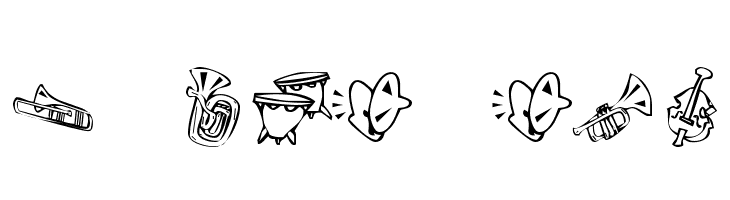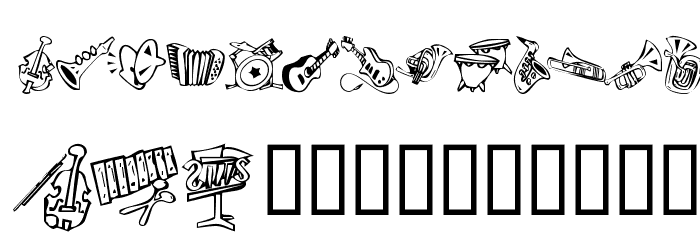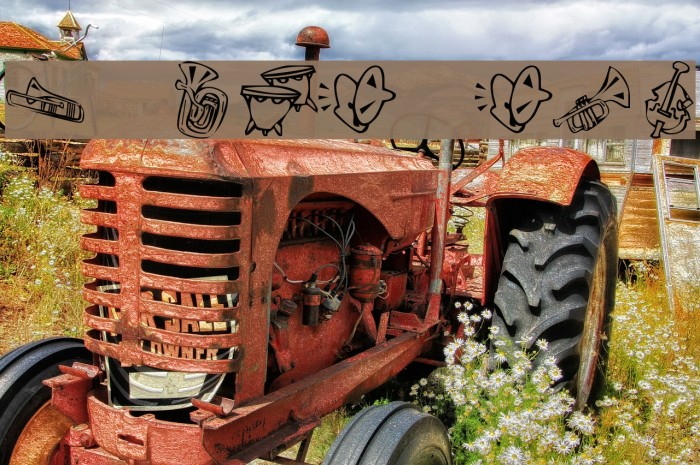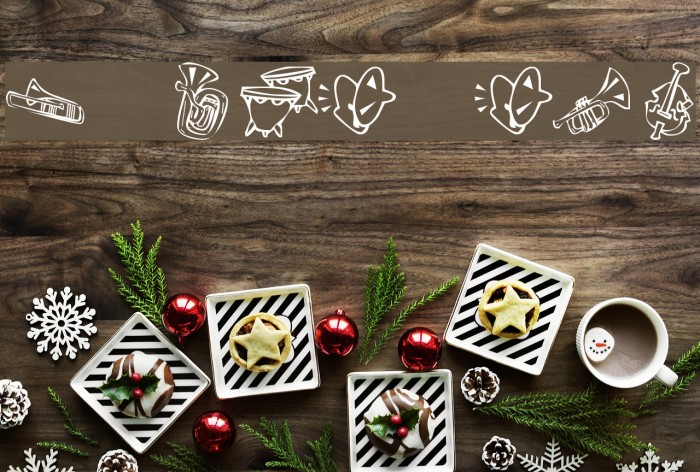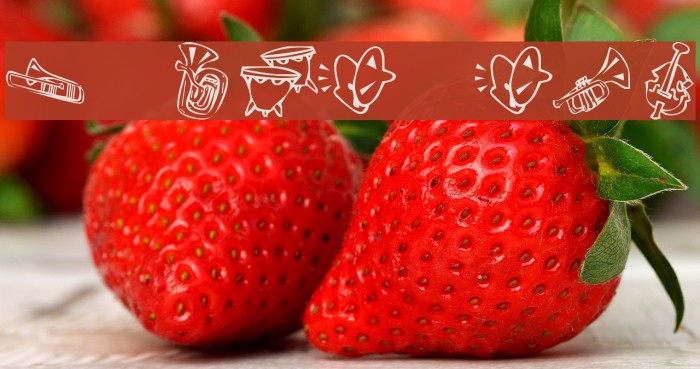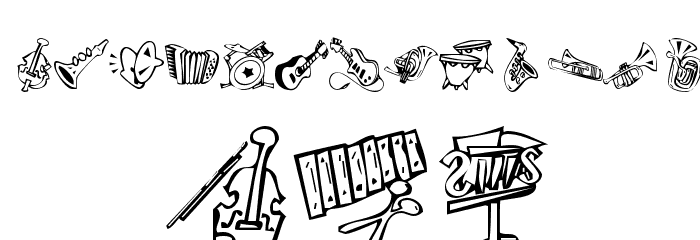
KR Music Class Font
This is a decorative font that features a playful and artistic representation of various musical instruments. Each character is uniquely designed to resemble a different instrument, such as guitars, drums, and trumpets, creating a whimsical and engaging visual theme. The font is highly stylized, with bold outlines and intricate details that capture the essence of each instrument. It is perfect for projects that aim to convey a sense of creativity and musicality, making it ideal for music-related designs, posters, and event promotions.
A decorative font featuring playful musical instrument designs.
• Proposed Projects: Ideal for music event posters, album covers, educational materials, and creative branding for music-related businesses.
• Category: Decorative/Display
• Overall Style: Decorative
• Use Case: Logos, Posters, Creative Branding